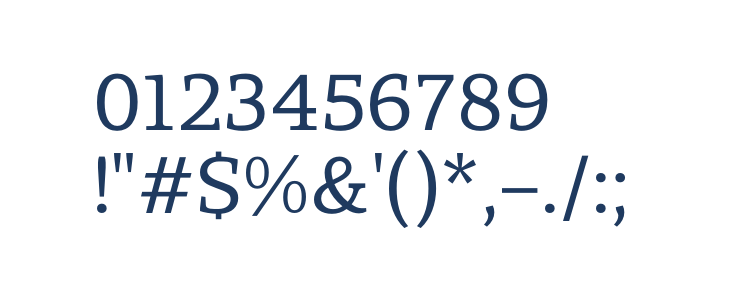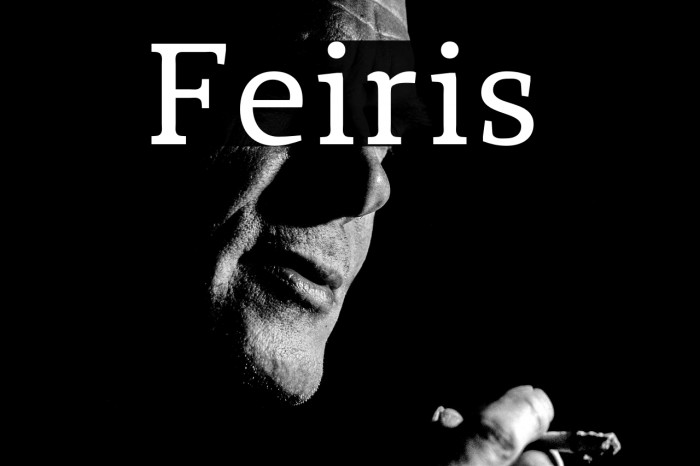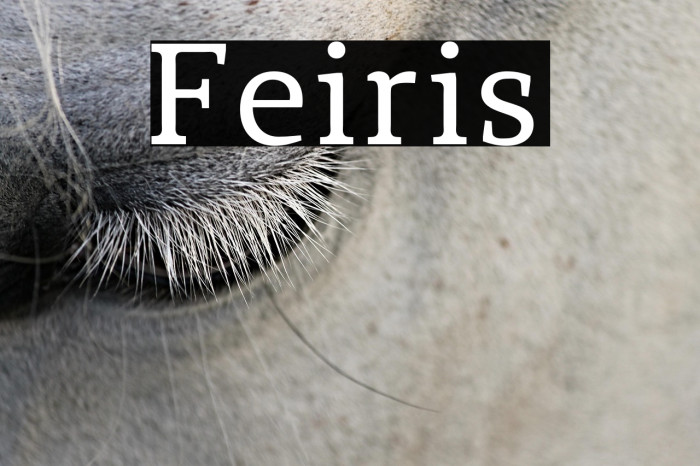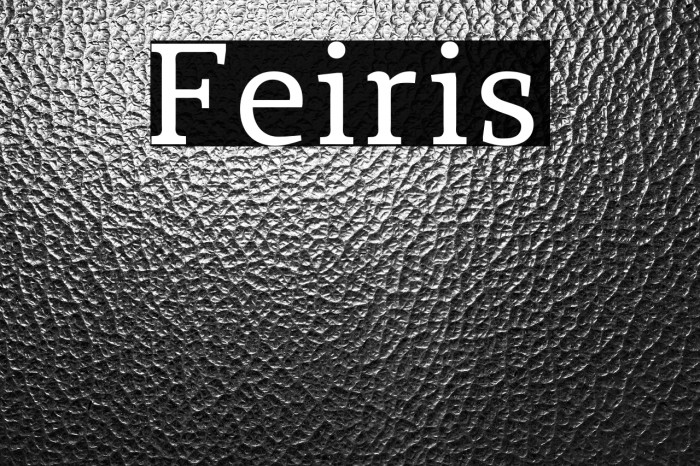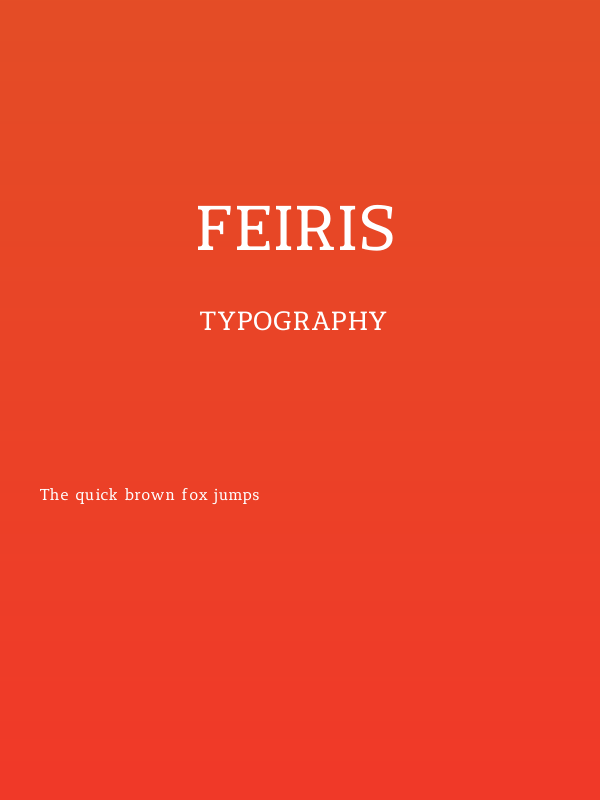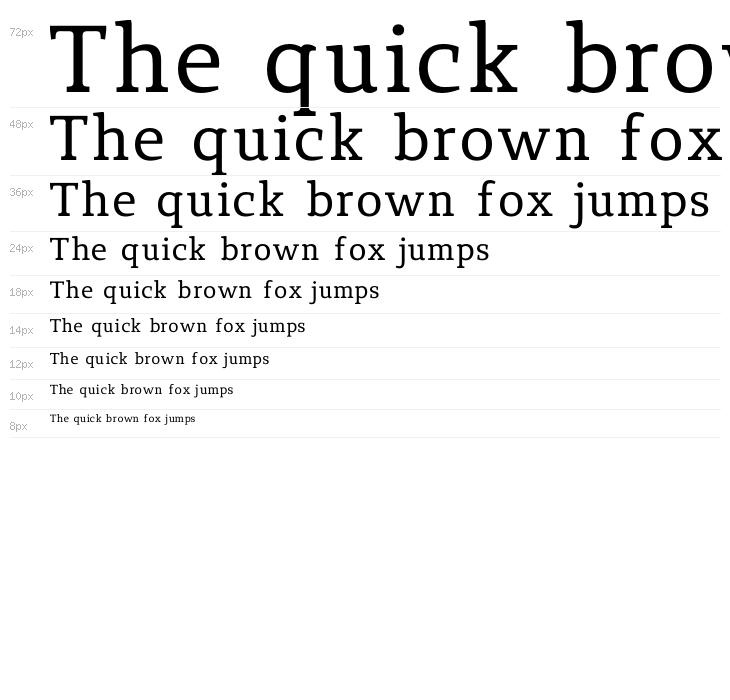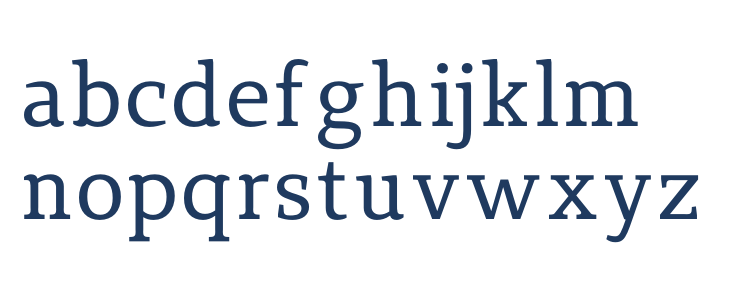
Feiris Font
Feiris Description
This serif font features a classic and elegant design, characterized by its distinct serifs and balanced proportions. The uppercase letters are bold and commanding, while the lowercase letters maintain a refined and approachable appearance. The numerals are clear and easily distinguishable, making them suitable for a variety of applications. The special characters are well-integrated, maintaining the font's cohesive style. Overall, this font exudes a timeless quality, making it versatile for both traditional and modern uses.
| Proposed Projects | Ideal for book covers, editorial design, formal invitations, and branding projects that require a touch of sophistication. |